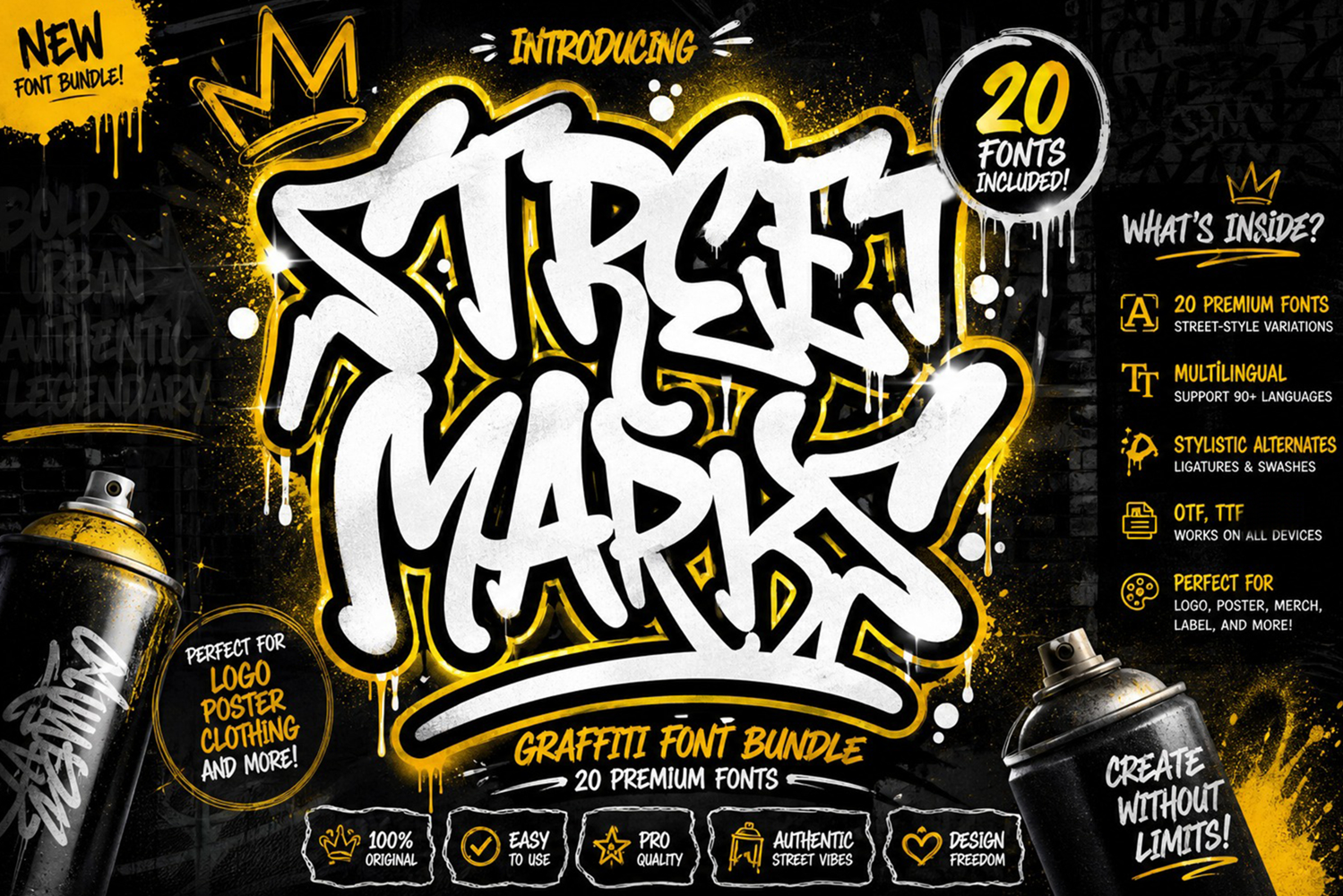
Graffiti Font Bundle Vol.2 | 20 Street Marks Typeface Pack
Bring raw street energy into your designs with Graffiti Font Bundle Vol. 2, a premium collection of 20 monoline graffiti tagging fonts inspired by authentic urban handstyles, marker tags, subway culture, and freestyle street lettering.
This bundle is perfect for creators who want bold graffiti aesthetics with clean monoline strokes that stay readable while still delivering underground street vibes. Whether you're designing logos, posters, album covers, apparel, stickers, YouTube thumbnails, branding, or merchandise, this pack gives you versatile graffiti styles ready to use instantly.
Included Features
• 20 Monoline Graffiti Tagging Fonts
• Uppercase & Lowercase Characters
• Swashes & Stylistic Alternates
• Authentic Urban Handstyle Look
Fonts Included
• Snakehead
• Blank Shack
• Hoax Vandal
• Hightgraff
• Dark Sider
• Skywoff
• Phantom Urbanism
• Loxer
• Woder Street
• The Valiroz
• Subway Scrawl
• Street Marker
• Slaber Tags
• Street Bugger
• Rebel Glow
• Sure Americana
• Goder Mother
• Coolest Hustle
• Cool Gank
• Seven Venom
• Graffiti Logos
• Streetwear Branding
• Posters & Flyers
• Album Covers
• Sticker Designs
• Merchandise
• Urban Social Media Content
• Hip Hop & Underground Projects
Add authentic street attitude to your typography collection with this powerful graffiti font bundle.